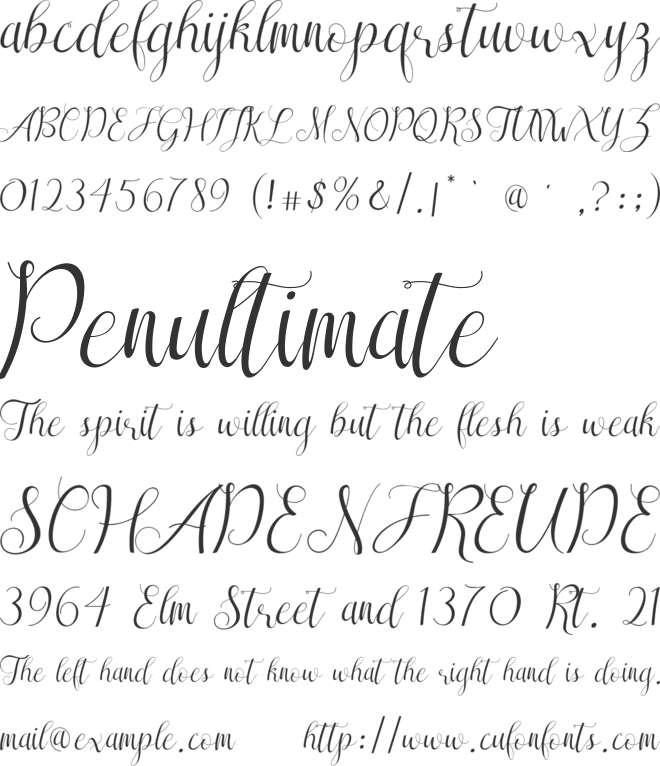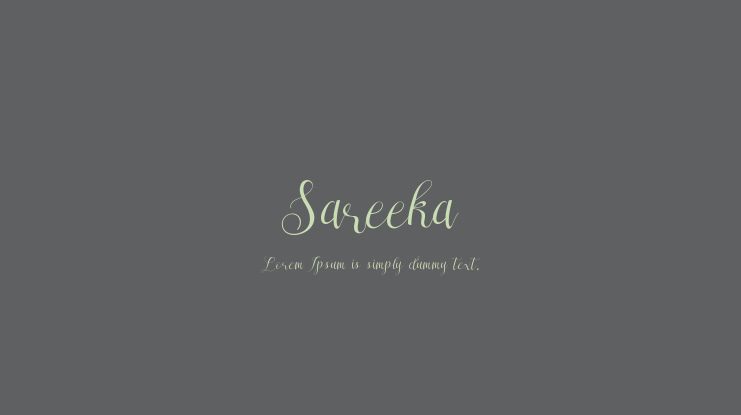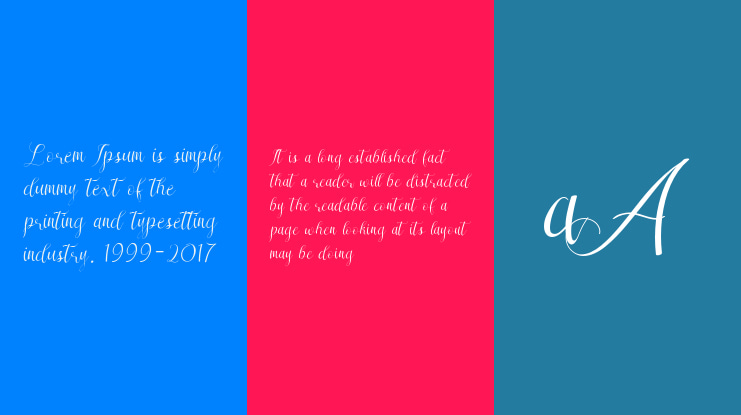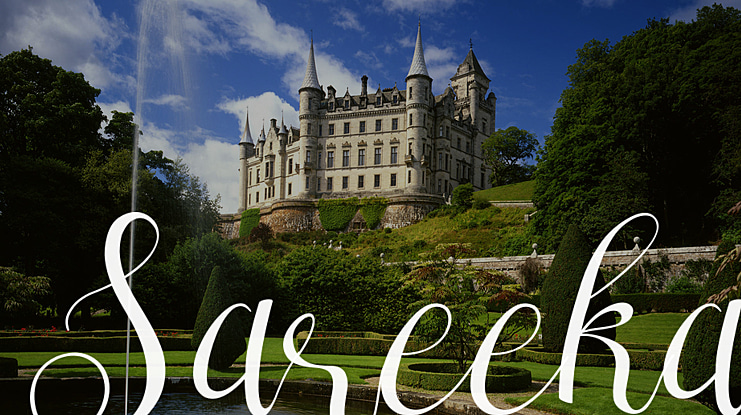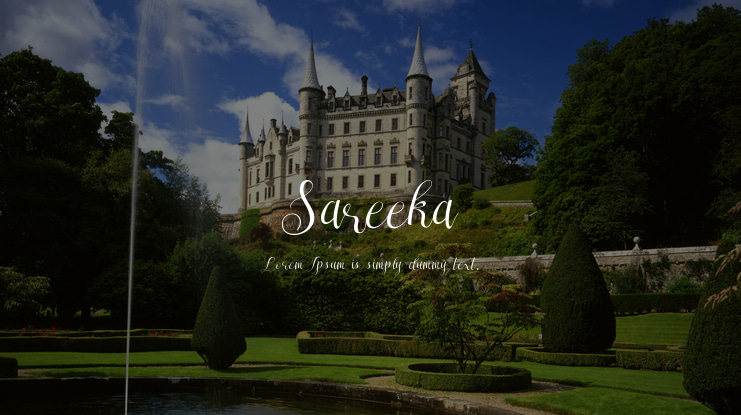
Sareeka Font
Sareeka is a modern calligraphy typeface with more variation stylistics sets and many features. Sareeka very suitable for feminime design, clothing, wedding event, wedding invitation and many more to design what you want. Sareeka features Stylistic Alternates, Ligatures and Discretionary Ligatures, Swash, Contextual Alternates, Multilingual Support, PUA Encoded